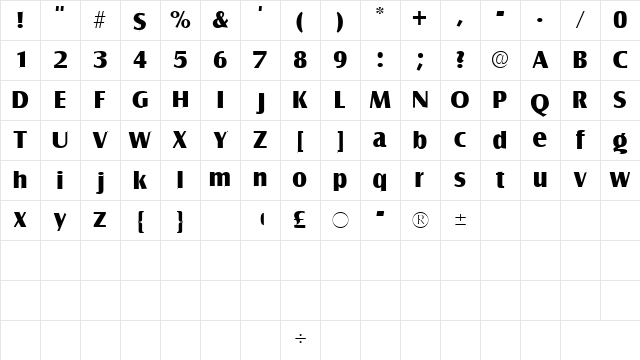
NautoSSK Regular
Design Context for NautoSSK
NautoSSK is a composed and adaptable typeface that performs quietly and consistently across a wide range of design contexts.